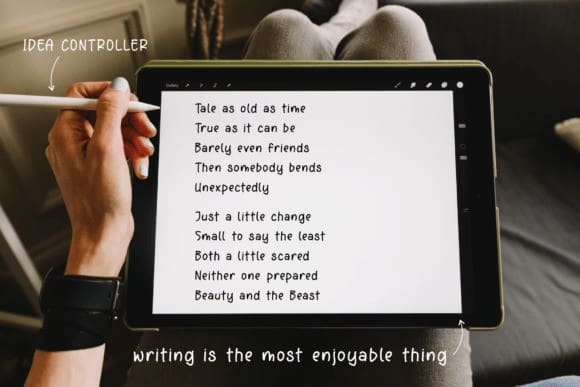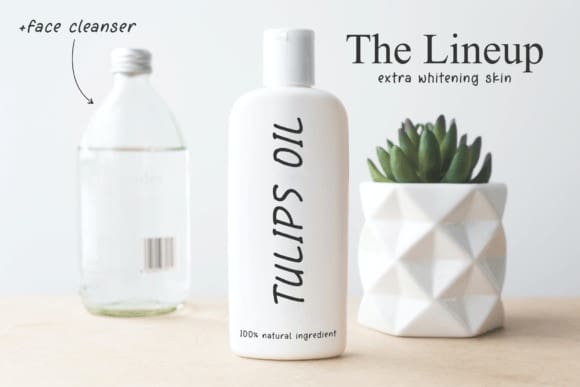
Kinderson Notes Font
Kinderson Notes Font – Handwritten Notes is suitable for any projects such as logos, branding projects, homeware designs, product packaging, mugs, quotes, posters, shopping bags, t-shirts, book covers, name card, invitation cards, greeting cards, label, photography, watermark, special events, and all your other lovely projects that need a beautiful script taste.